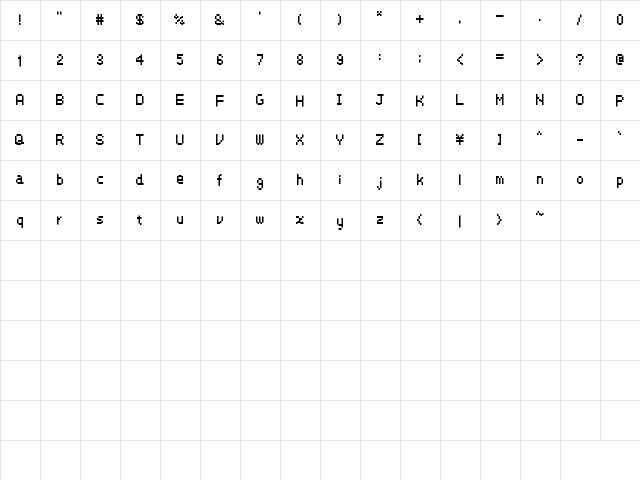
HM Slender Bit Regular
Design Context for HM Slender Bit Typeface
HM Slender Bit is a composed and adaptable typeface that performs quietly and consistently across a wide range of design contexts.